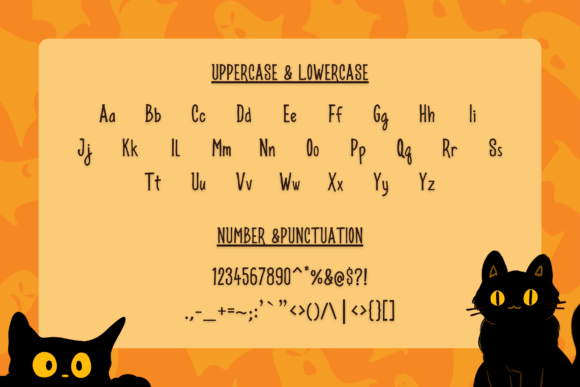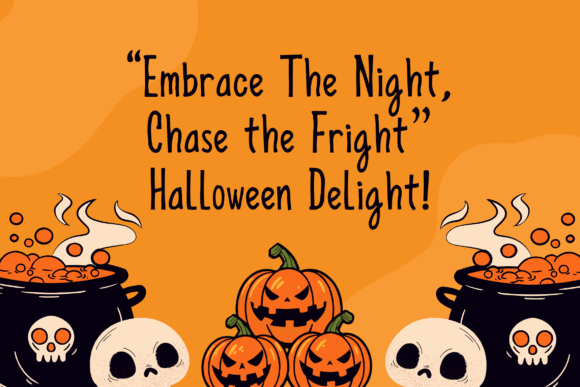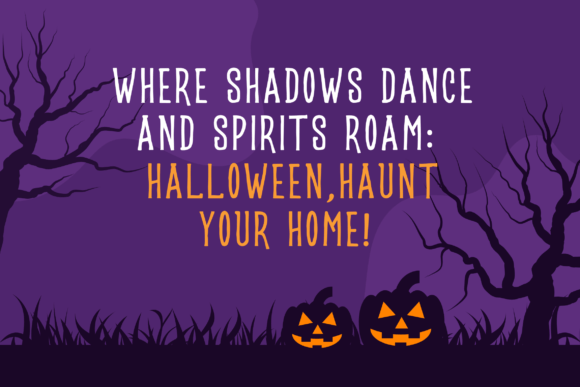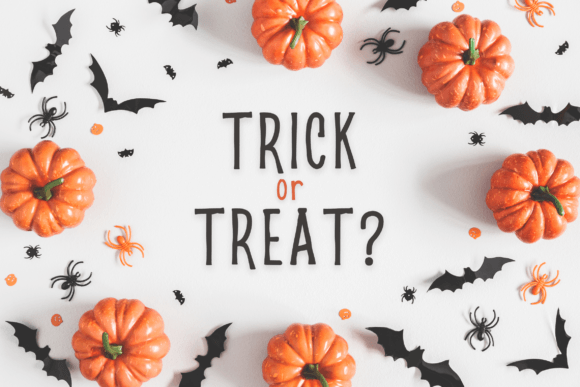
Introducing Haluwin Font: The Ultimate Addition to Your Creative Projects
Are you tired of using the same old fonts in your creative projects? Look no further! Haluwin Font is here to shake things up with its fun and quirky handwritten style. This exciting new font is perfect for designers, crafters, and anyone looking to add a touch of personality to their work.
What is Haluwin Font?
Haluwin Font is a unique and creative handwritten font that is sure to make your projects stand out. With its playful and whimsical style, it’s perfect for a variety of applications, from crafting and DIY projects to digital designs and marketing materials.
Key Features of Haluwin Font
- Handwritten style: Haluwin Font has a beautiful, handwritten look that’s perfect for adding a personal touch to your projects.
- Fun and quirky: This font is designed to be fun and playful, making it perfect for creative projects that need a bit of personality.
- Highly versatile: Haluwin Font can be used for a wide range of applications, from crafting and DIY projects to digital designs and marketing materials.
How to Use Haluwin Font in Your Projects
Haluwin Font is incredibly easy to use and can be applied to a variety of projects, including:
- Crafting and DIY projects: Add a personal touch to your crafting and DIY projects, such as handmade cards, gift tags, and scrapbooking pages.
- Digital designs: Use Haluwin Font in your digital designs, such as social media graphics, blog posts, and email marketing campaigns.
- Marketing materials: Add a touch of personality to your marketing materials, such as brochures, flyers, and business cards.
Benefits of Using Haluwin Font
There are many benefits to using Haluwin Font in your creative projects, including:
- Adds personality: Haluwin Font adds a unique and playful touch to your projects, making them stand out from the crowd.
- Increases engagement: The fun and quirky style of Haluwin Font can help increase engagement and interaction with your audience.
- Versatile: This font can be used for a wide range of applications, making it a great addition to your font library.
Tips and Tricks for Using Haluwin Font
Here are a few tips and tricks for getting the most out of Haluwin Font:
- Experiment with different sizes and colors: Try out different sizes and colors to see what works best for your project.
- Use it with other fonts: Haluwin Font pairs well with other fonts, so don’t be afraid to experiment with different combinations.
- Make it your own: Add your own personal touch to your projects by customizing the font to fit your style.
| Font Name | Haluwin Font |
| Author | filosovis.co |
Haluwin Font is a fun and quirky handwritten font that’s perfect for designers, crafters, and anyone looking to add a touch of personality to their creative projects. With its highly versatile style and easy-to-use format, it’s a great addition to any font library. So why not give it a try and see the amazing results for yourself?